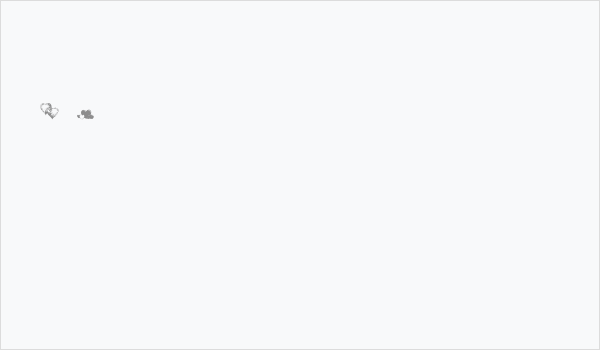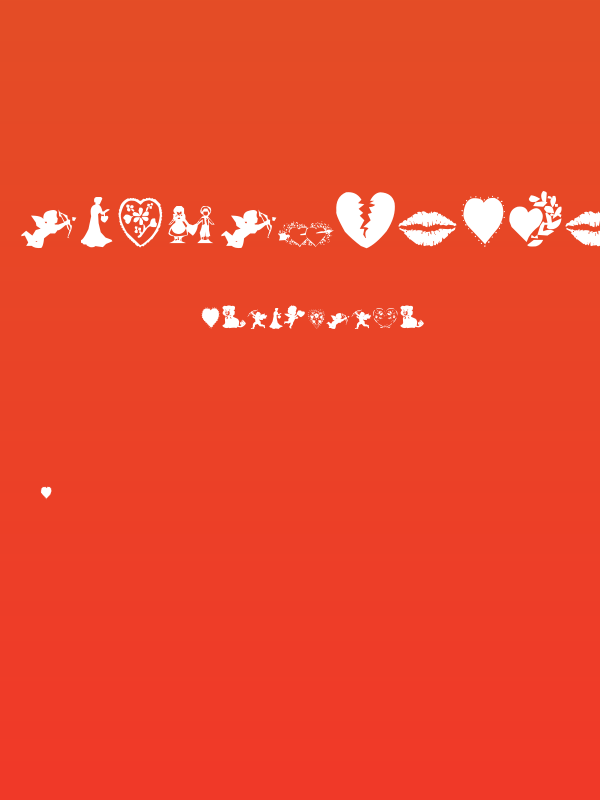
aosvalentine Font
aosvalentine Description
A decorative dingbat font featuring various love and Valentine-themed icons such as hearts, cupids, couples, flowers, and romantic motifs. Each character is represented by a unique pictogram rather than a standard letterform.
| Overall Style | Decorative, Playful, Thematic |
| Use Case | Icons, Decorative elements, Themed graphics |
| Proposed Projects | Greeting cards, wedding invitations, romantic event flyers, scrapbooking, themed crafts, decorative borders. |